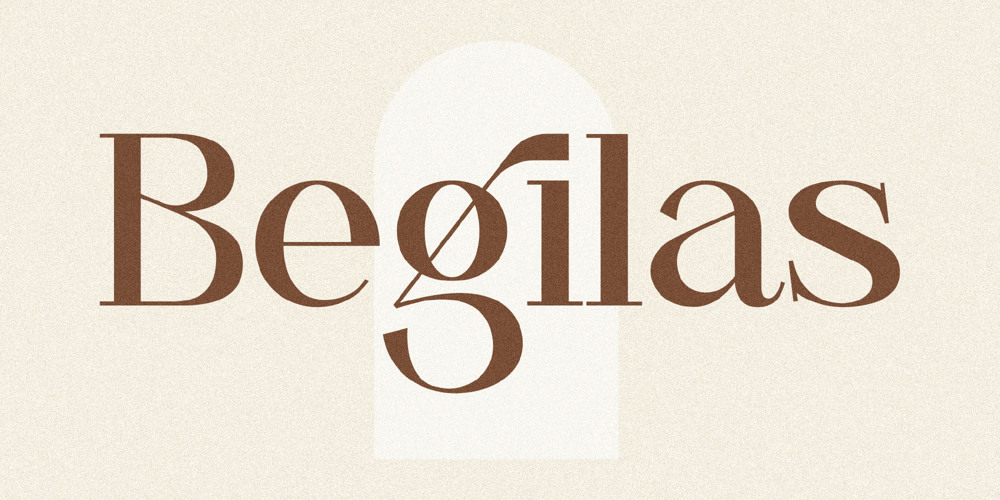
Begilas
Begilas font
Begilas Font Family was designed by Heru Utama Putra and published by Letterena Studios. Begilas contains 2 styles and family package options. Begilas is a stylish and modern serif font. Add it confidently to your unique projects and you will love the results!